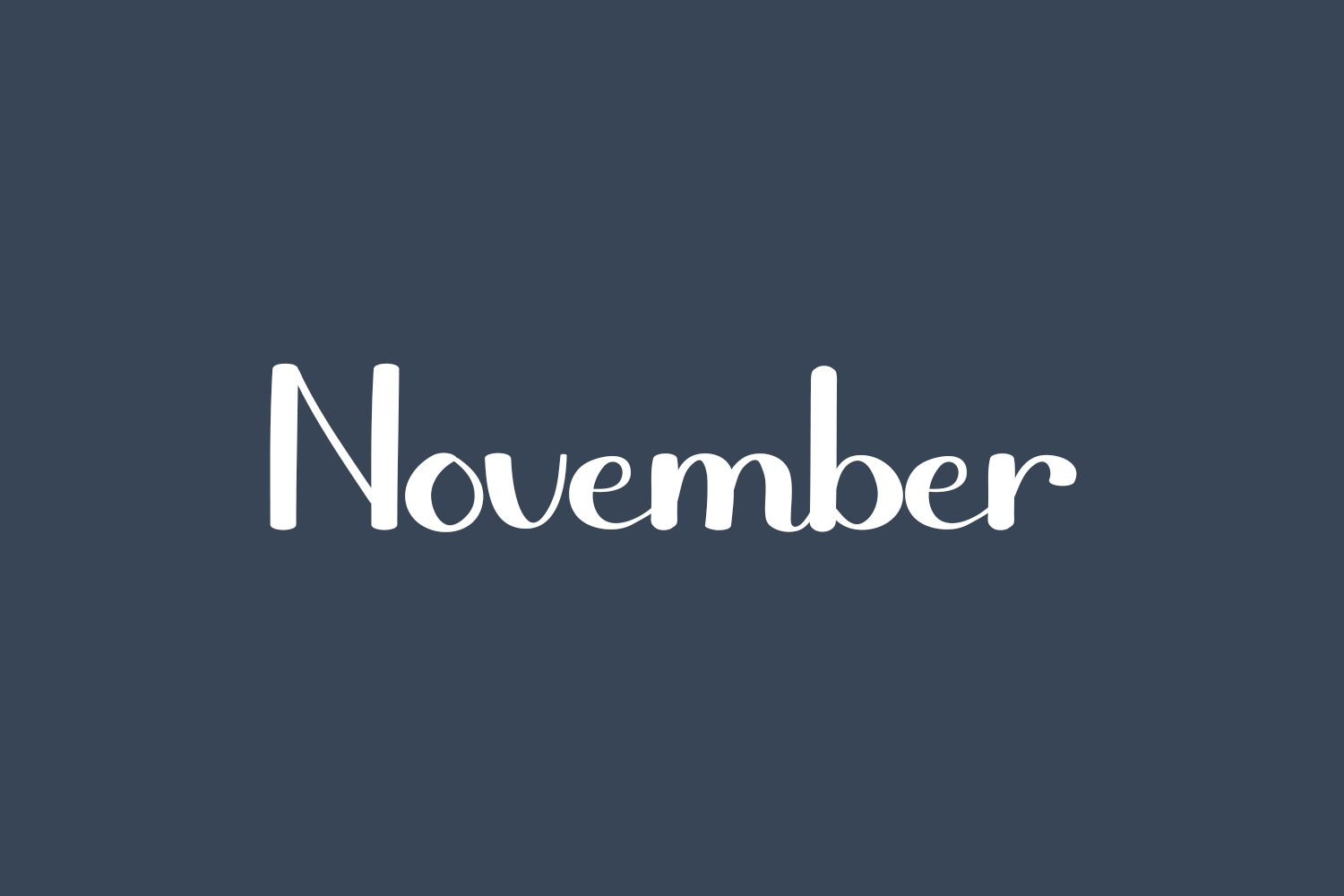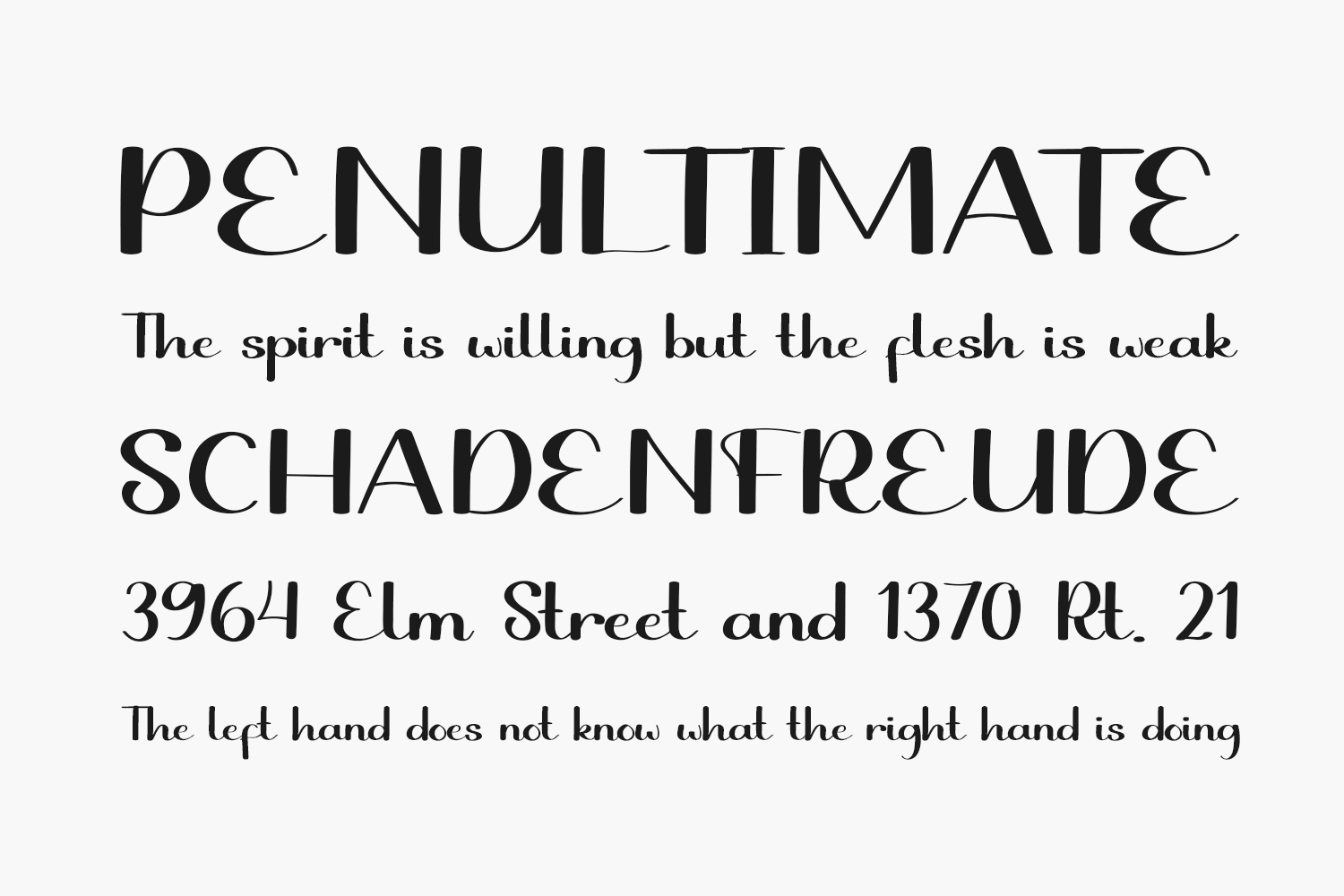
November Free Font is a lovely and delicate script font that exudes elegance and class. This font was particularly crafted for those who need a beautiful and refreshing look to their designs. November Free Font is free for personal use only. Please purchase the full version for commercial use.
Designed by Erik Studio